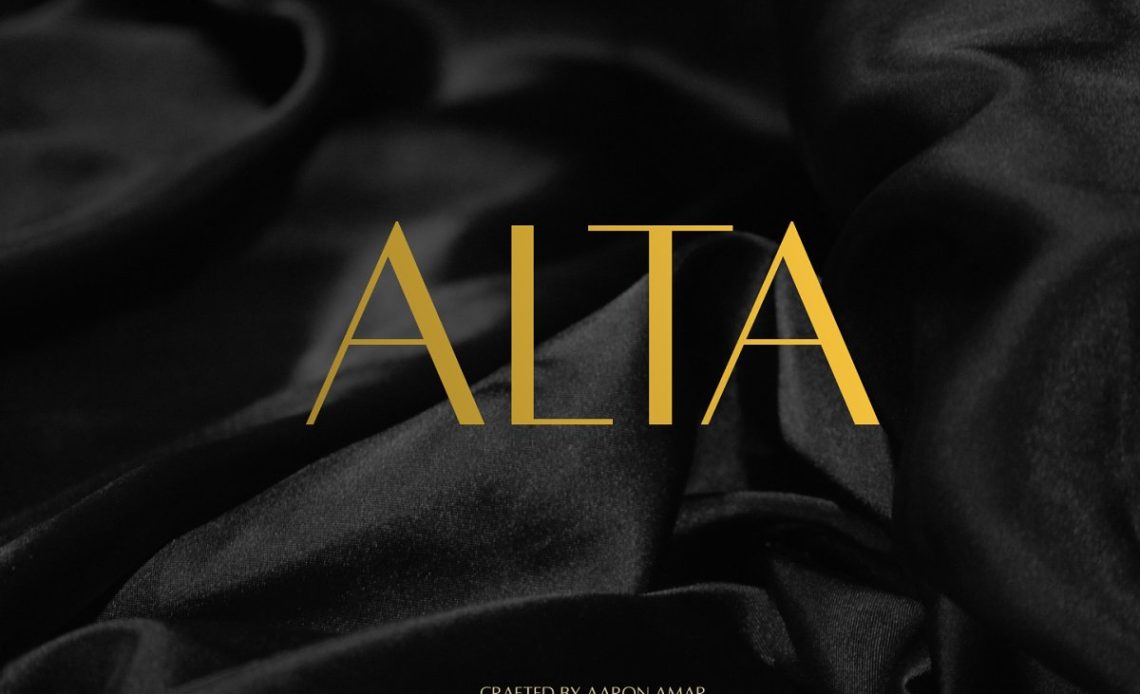
Introducing Alta Typeface - a stunning and versatile sans-serif display font family that will elevate your design projects to new heights. Created by renowned designer Aaron Amar, this font family is the perfect blend of elegance and modernity, designed to make your creations stand out from the crowd.
Crafted with precision and attention to detail, Alta Typeface features three weights - Regular, Light, and Caption - giving you the flexibility to use it for a wide range of design purposes, from headlines and titles to body text and captions. With its clean lines, crisp edges, and minimalist aesthetic, this font family is sure to make a lasting impression on your audience.
Inspired by the iconic Optima Typeface, originally created by Hermann Zapf, Alta Typeface takes the aesthetics of this classic font to a whole new level. Its all-caps display humanist design adds a touch of personality and warmth to your designs, making them more inviting and engaging.